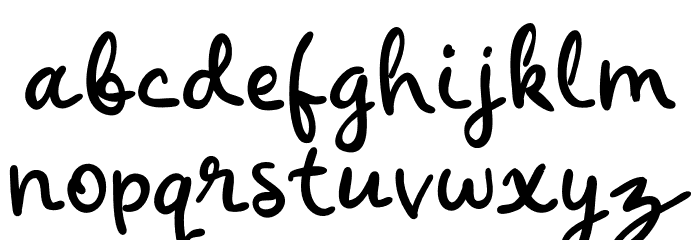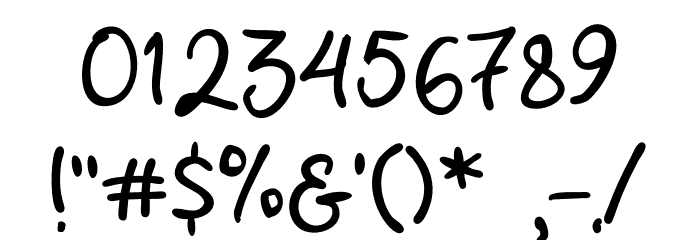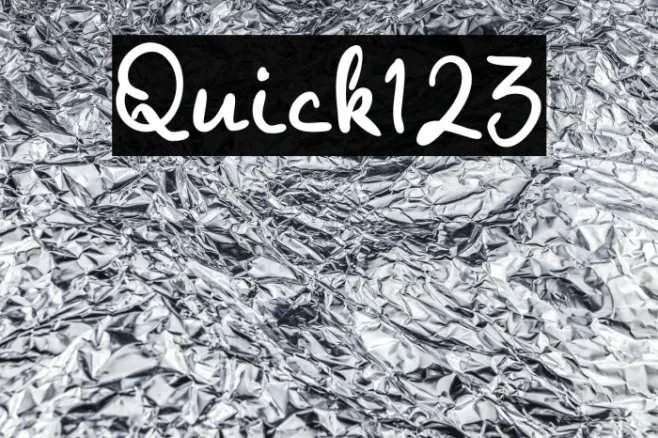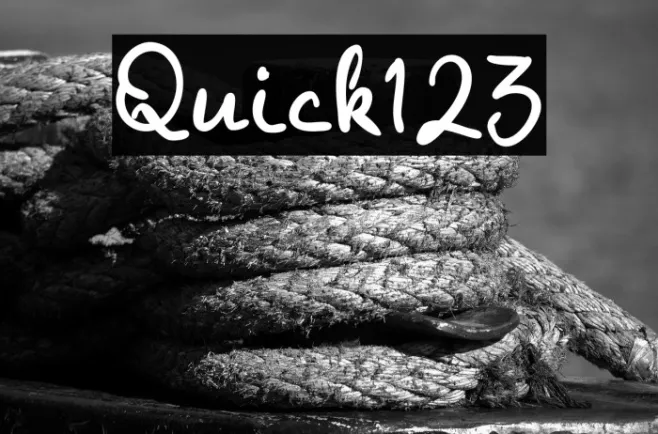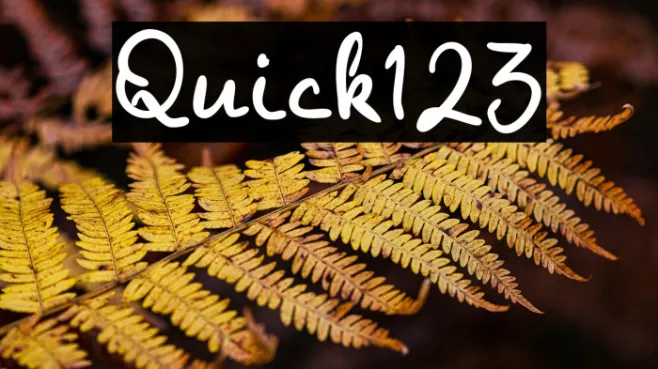
Quick123 Font
This font features a playful and casual script style, characterized by its flowing, connected letters that mimic natural handwriting. The uppercase letters maintain a consistent height and are slightly more ornate, while the lowercase letters are more rounded and fluid. The numbers are bold and clear, ensuring readability. Special characters are integrated seamlessly, maintaining the font's cohesive style. The overall appearance is friendly and approachable, making it suitable for informal and creative projects.
A playful, casual script font with flowing, connected letters.
- Proposed Projects: Ideal for greeting cards, invitations, personal branding, and creative projects that require a friendly, handwritten touch.
- Overall Style: Casual, Playful
- Use Case: Logos, Invitations, Greeting Cards